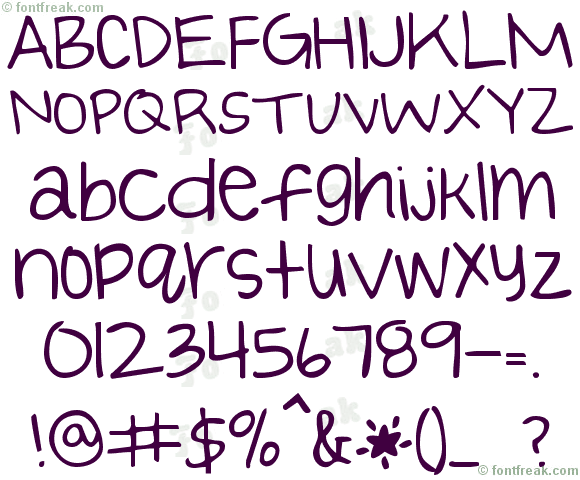
Blessings through Raindrops
About Blessings through Raindrops
"Blessings through Raindrops" by Kimberly Geswein is a charming handwritten font that captures a delightful blend of warmth and whimsy. This script-style typeface features a playful, fluid design characterized by its moderate stroke weight and a gentle contrast that adds an inviting touch to any text. The letters are well-spaced, allowing for easy readability while maintaining a casual, friendly vibe. Decorative elements are subtly integrated, enhancing its overall charm without overwhelming the design.
This font is perfect for a variety of creative applications. Its lighthearted style makes it an excellent choice for wedding invitations, where it can evoke a sense of joy and love. Additionally, it works wonderfully for greeting cards, adding a personal touch to heartfelt messages. Small business owners can utilize "Blessings through Raindrops" for branding materials, such as shop signage or product labels, to convey a friendly and approachable image. Content creators will find it suitable for social media graphics, where a handwritten look can help engage audiences and add a unique flair.
Targeting graphic designers, small business owners, and content creators, this font appeals to those seeking to convey a sense of warmth and connection through their work. The handcrafted quality of "Blessings through Raindrops" resonates with audiences looking for authenticity and personality in their designs.
What sets this font apart is its ability to evoke emotions while remaining versatile enough for various projects. With the "Blessings through Raindrops font free download," you can easily incorporate this delightful typeface into your own creative endeavors, allowing your designs to stand out with a touch of heartfelt charm.